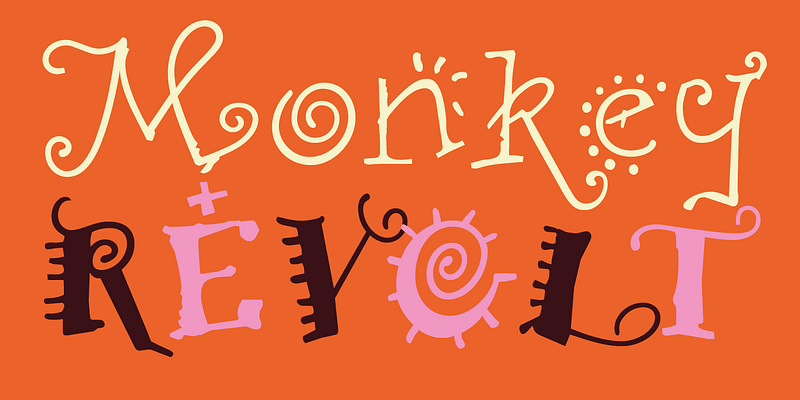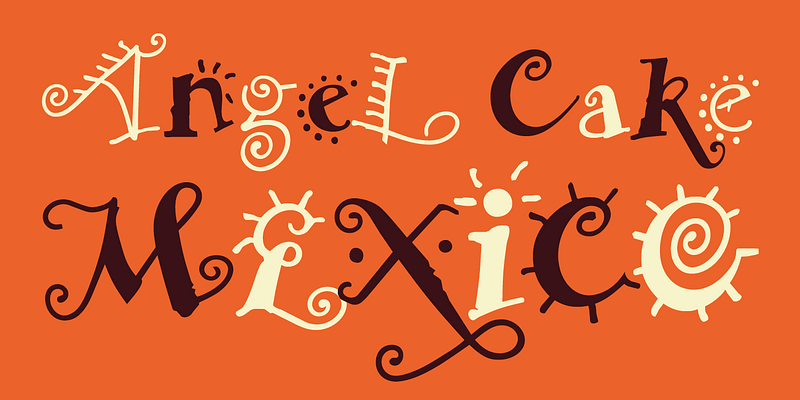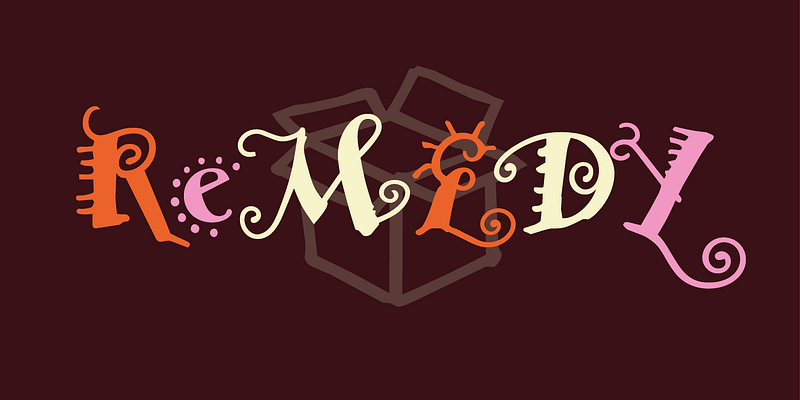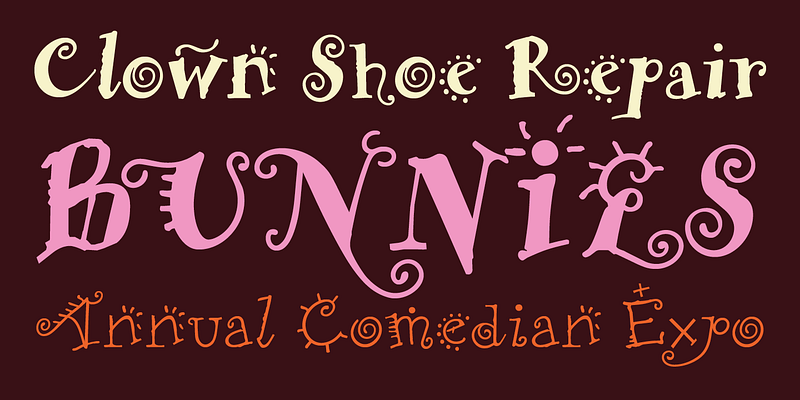
In 1988 the London-based Thunderjockeys, consisting of Graham Elliott and John England, designed an album cover for the New York metal band Living Colour. The logo they drew for this cover was either the inspiration for a number of such curlicue typefaces surfacing in those days, or was simply a harbinger of these creations destined to come out due to that period’s interest in 60s and 70s styles. Prince’s Graffiti Bridge, Dee-Lite’s World Clique and almost all of the Cure album covers are just a few examples displaying similar hand drawn type.
Then, out of Stuttgart, Germany came Remedy. Created by Frank Heine, Remedy is by far the most thoroughly conceived design inspired by these influences, and it became a major commercial success because of its own special qualities. It’s curlicue, free-style, comic appearance, provided a perfect counter to Emigre’s then primarily modular type designs.
Presented in two weights, featuring numerous alternate characters, flourishes and dingbats, Remedy is a perfectly whimsical typeface suitable for your most jovial celebratory communications.